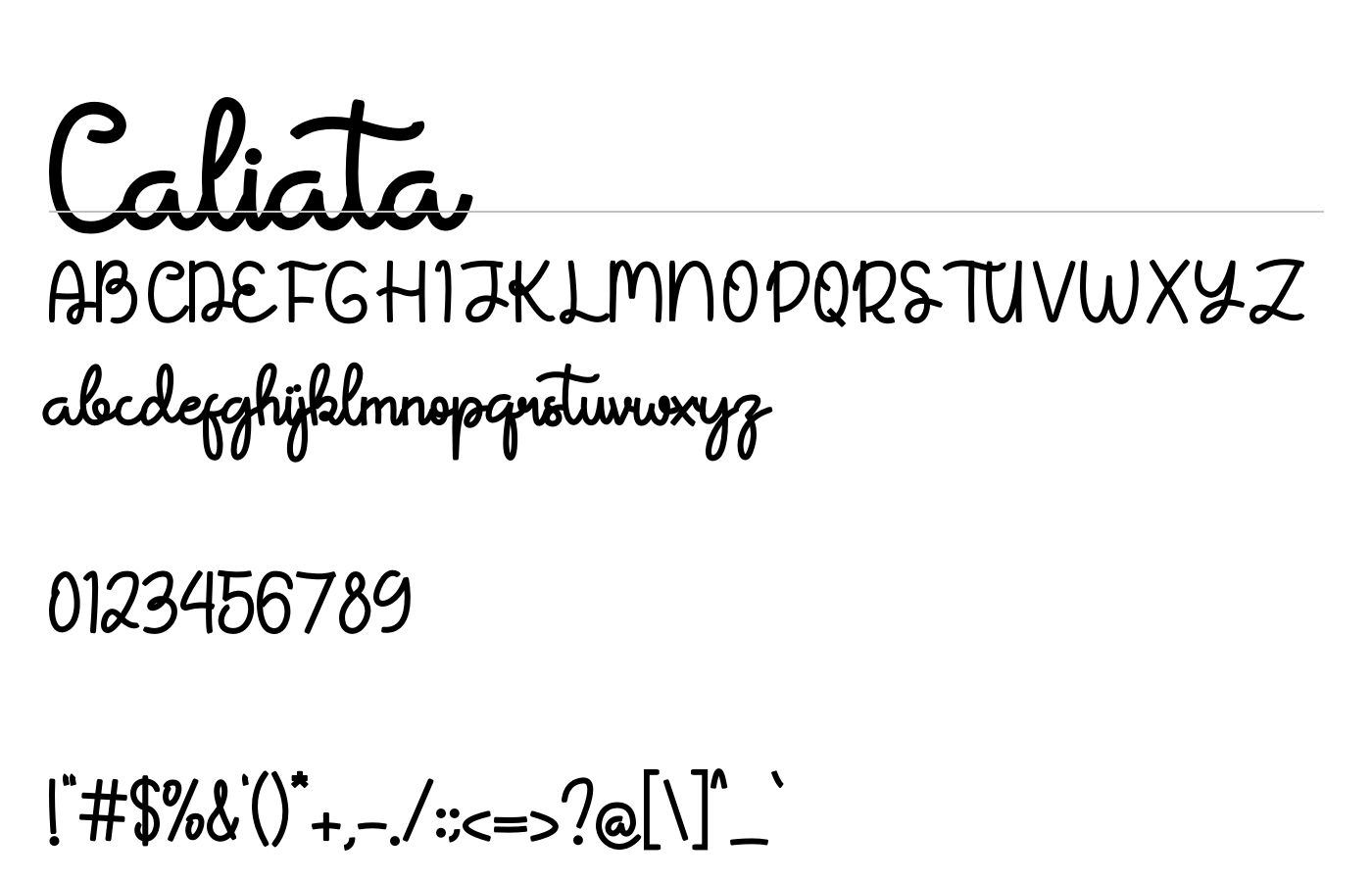
Caliata is a playful, handwritten script font with a casual and friendly vibe, featuring smooth, flowing strokes and unique letterforms that add personality and charm. Its light weight and slightly condensed style make it perfect for creative projects, branding, and invitations where a personal, approachable feel is desired. This font works especially well in headlines and logos, bringing a warm, inviting touch to any design.
Caliata Font
About Caliata Font
| Font family | Caliata Font |
| Designer | Jada Akbal |